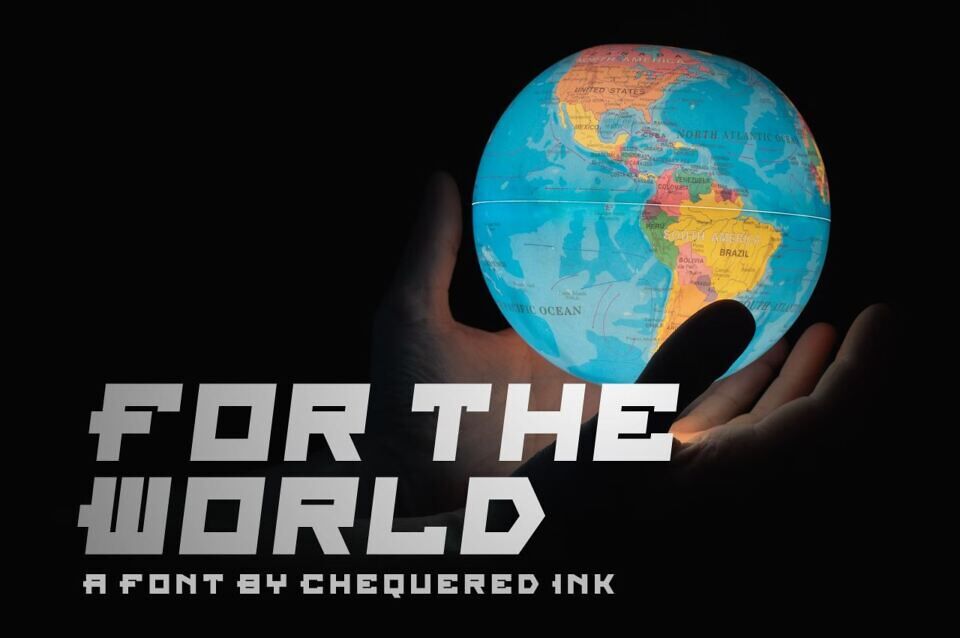
For The World is a sleek techno-display font created by Chequered Ink. Featuring two styles—Regular Italic and Straight Regular—it blends squared letterforms with a subtle slant for a futuristic, angular feel.
With 219 glyphs supporting multiple Latin-based languages, it’s perfect for sci‑fi branding, posters, UI, or any design seeking a bold, high-tech vibe.